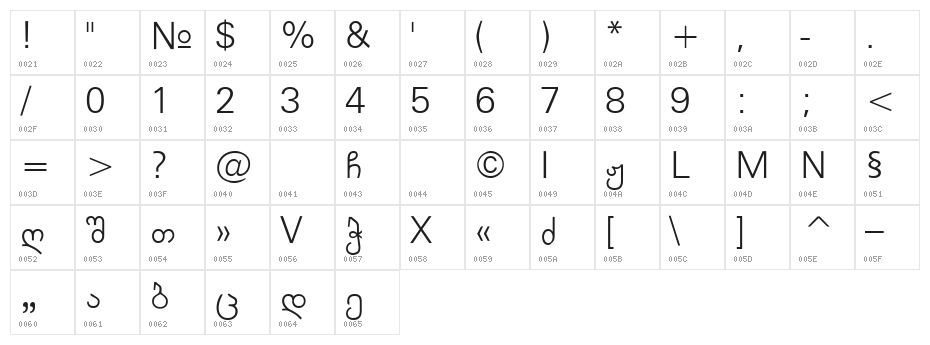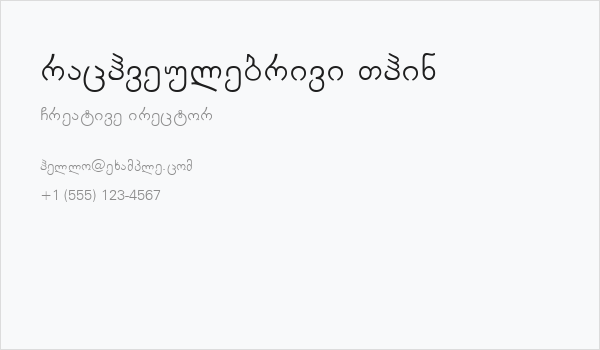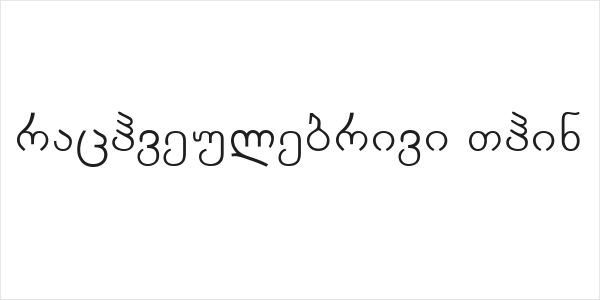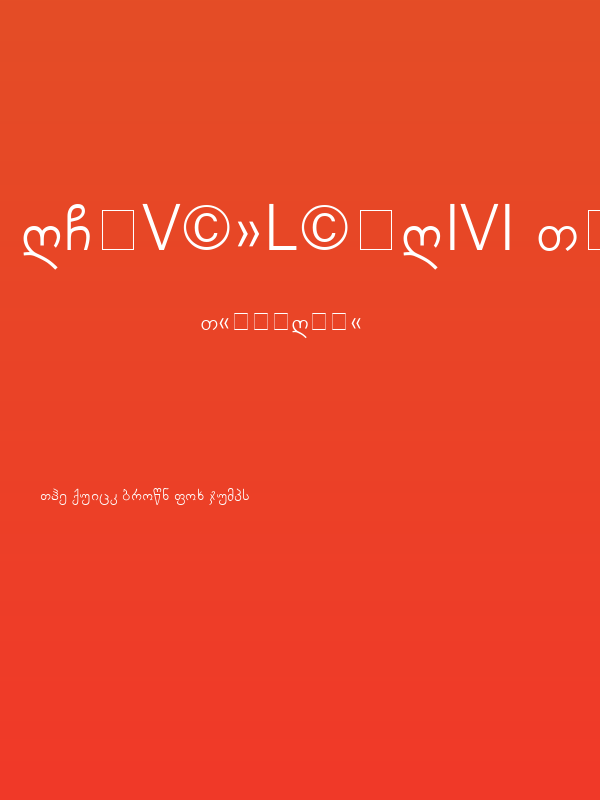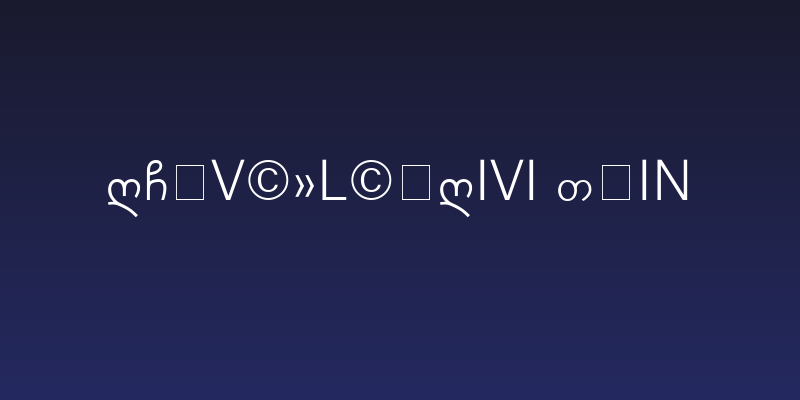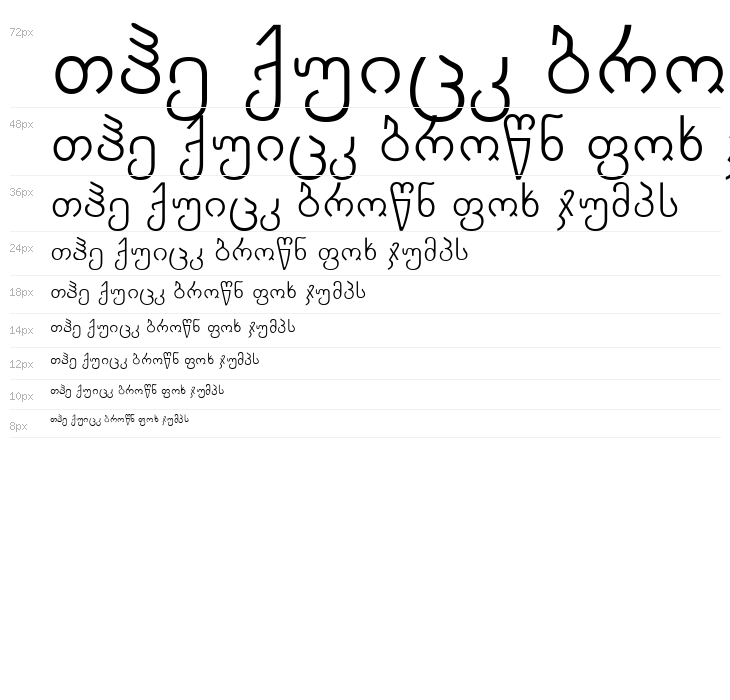
Arachveulebrivi Thin Font
This font features a clean and modern design with a thin weight, offering a sleek and elegant appearance. The characters are well-defined with smooth curves and straight lines, providing a balanced and harmonious look. The font includes a full set of uppercase and lowercase letters, numerals, and a variety of special characters. Its minimalistic style makes it suitable for contemporary design projects, emphasizing clarity and readability. The spacing between characters is normal, ensuring legibility across different sizes.
Proposed ProjectsIdeal for branding, editorial design, web design, and minimalist graphic projects.